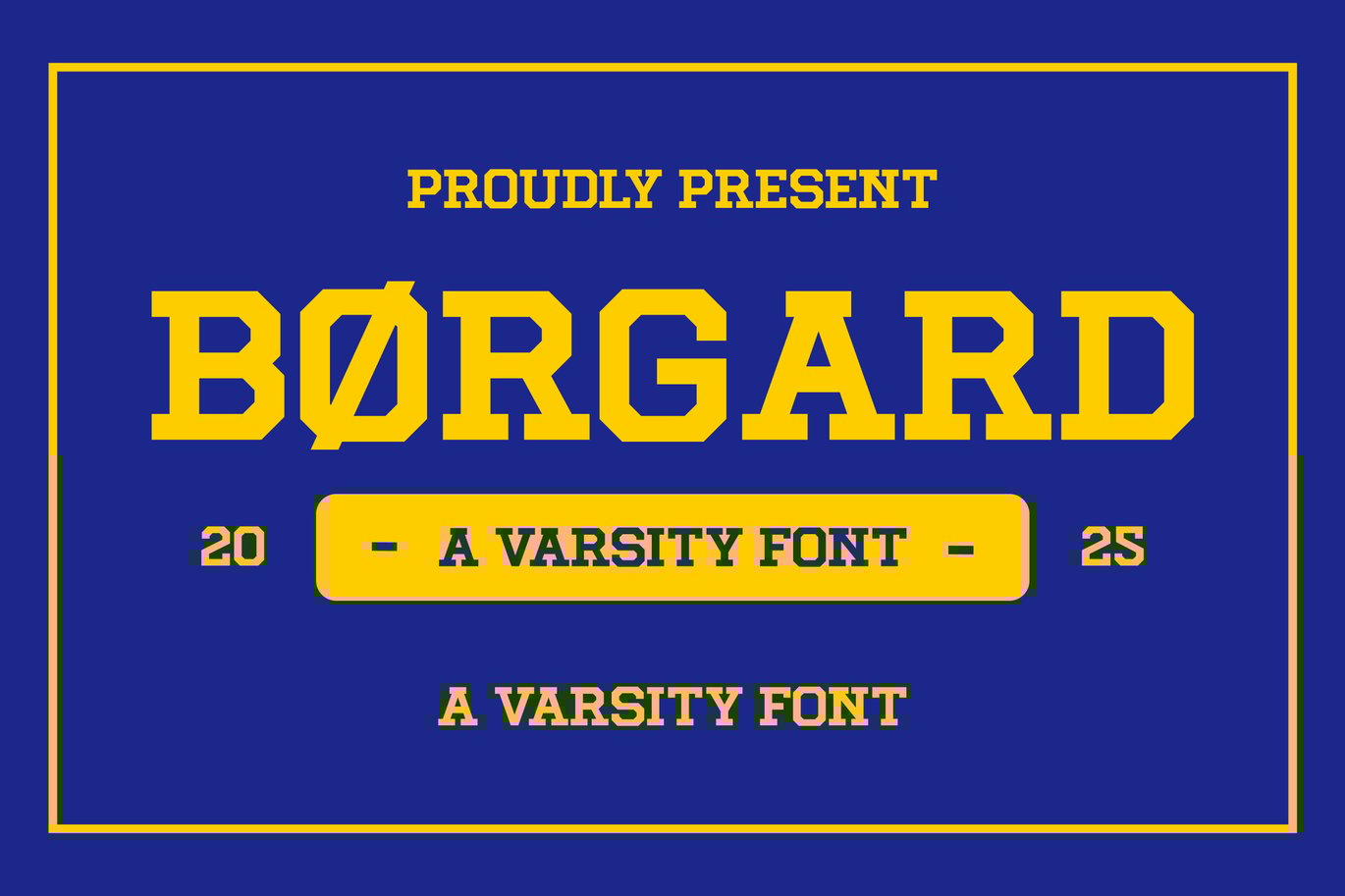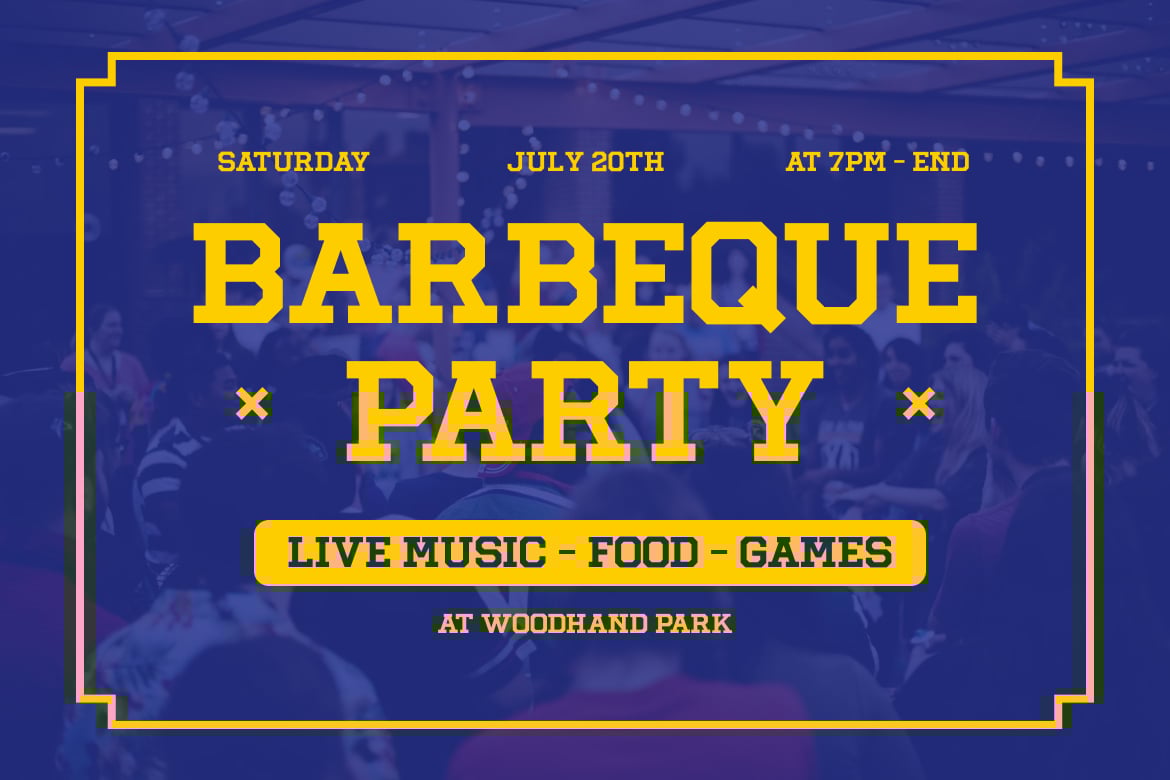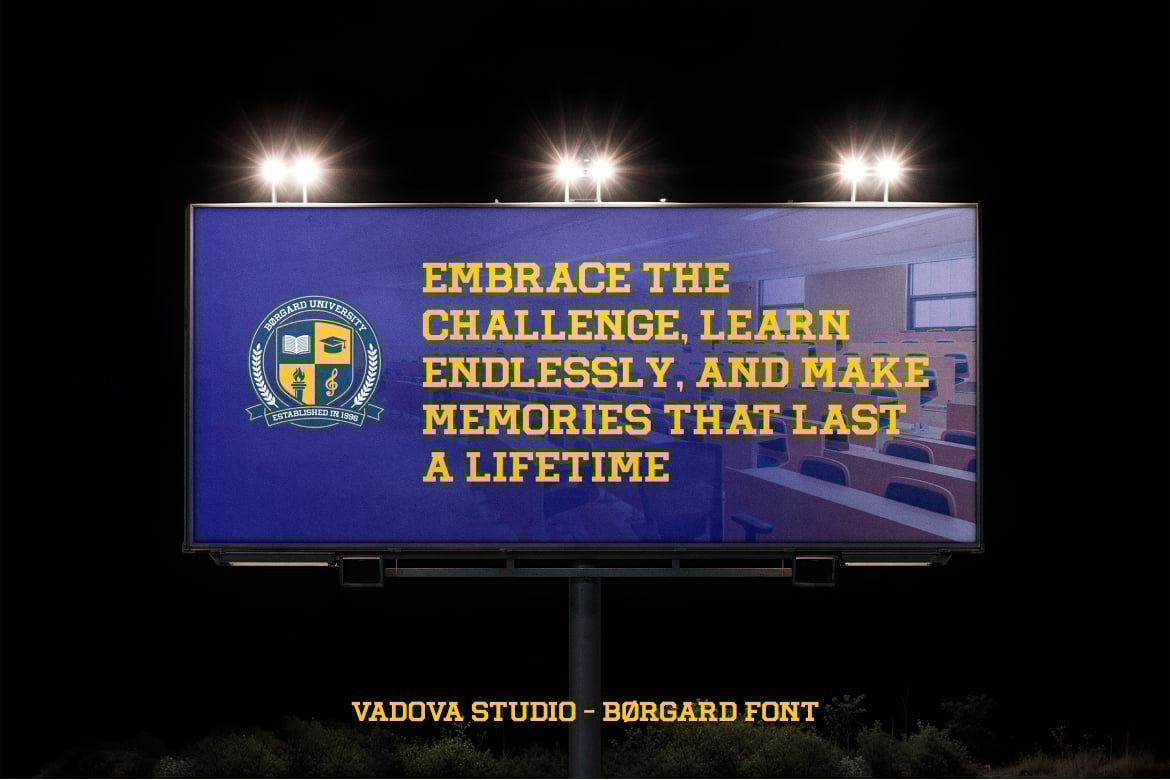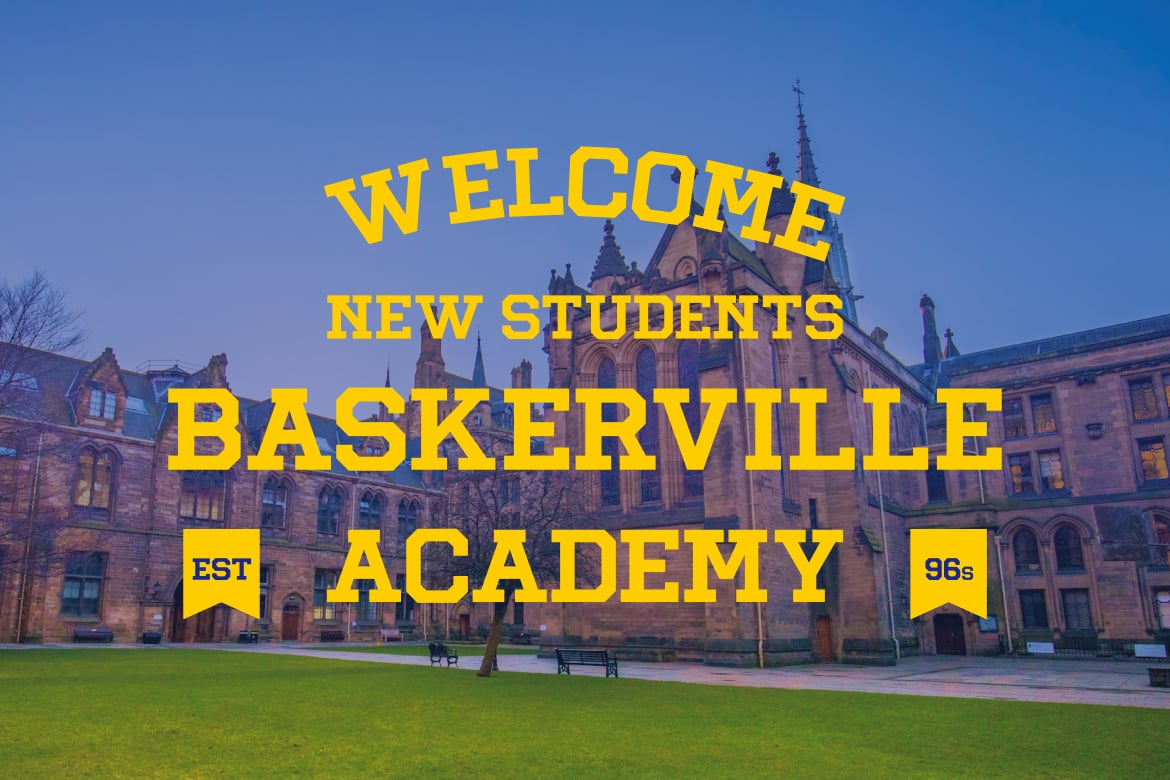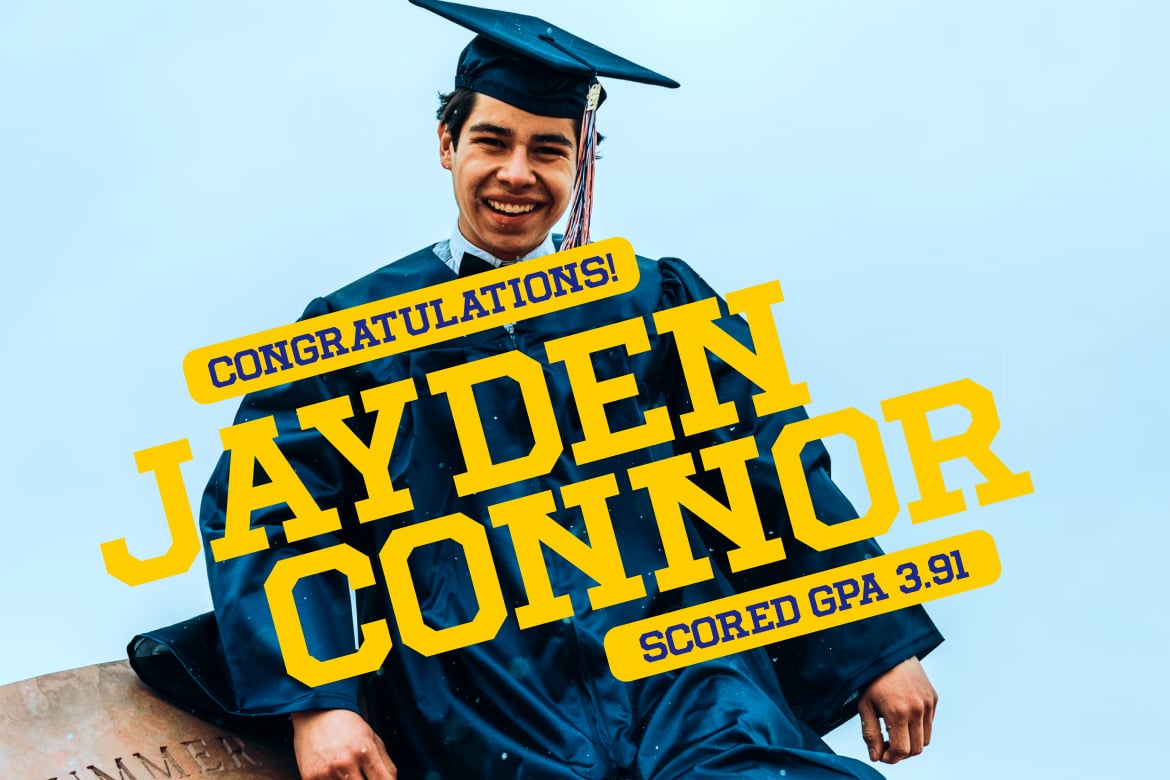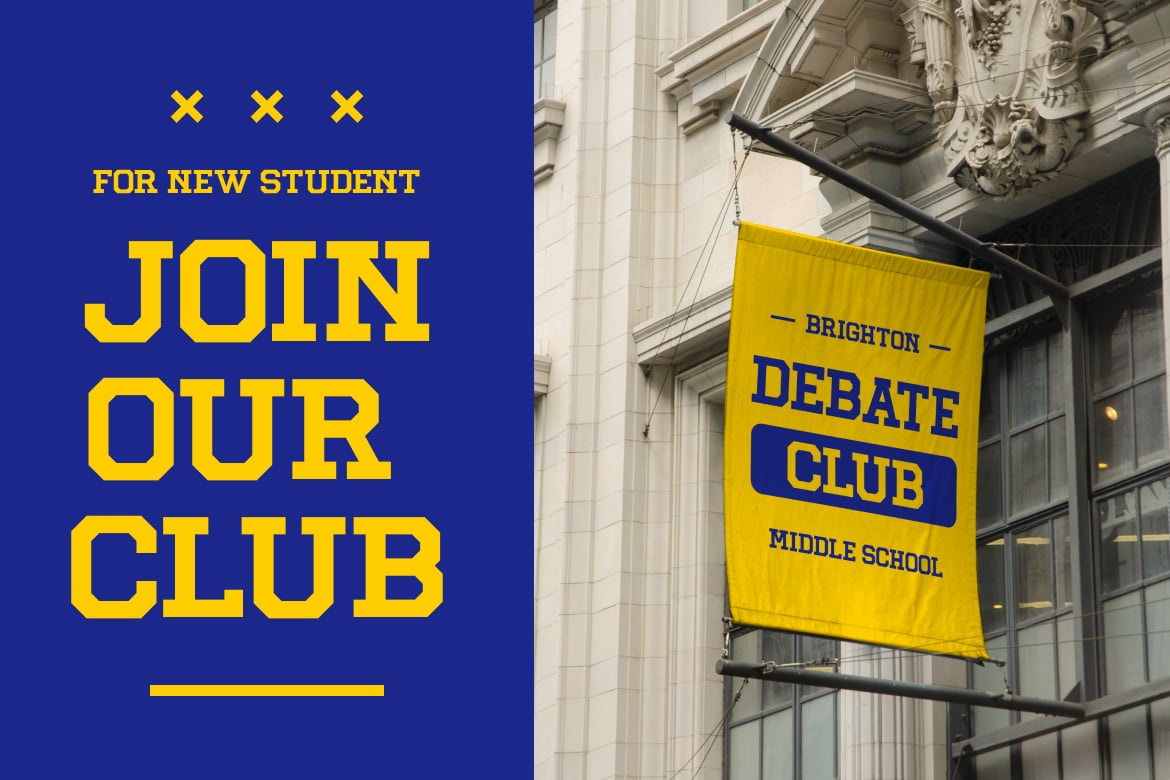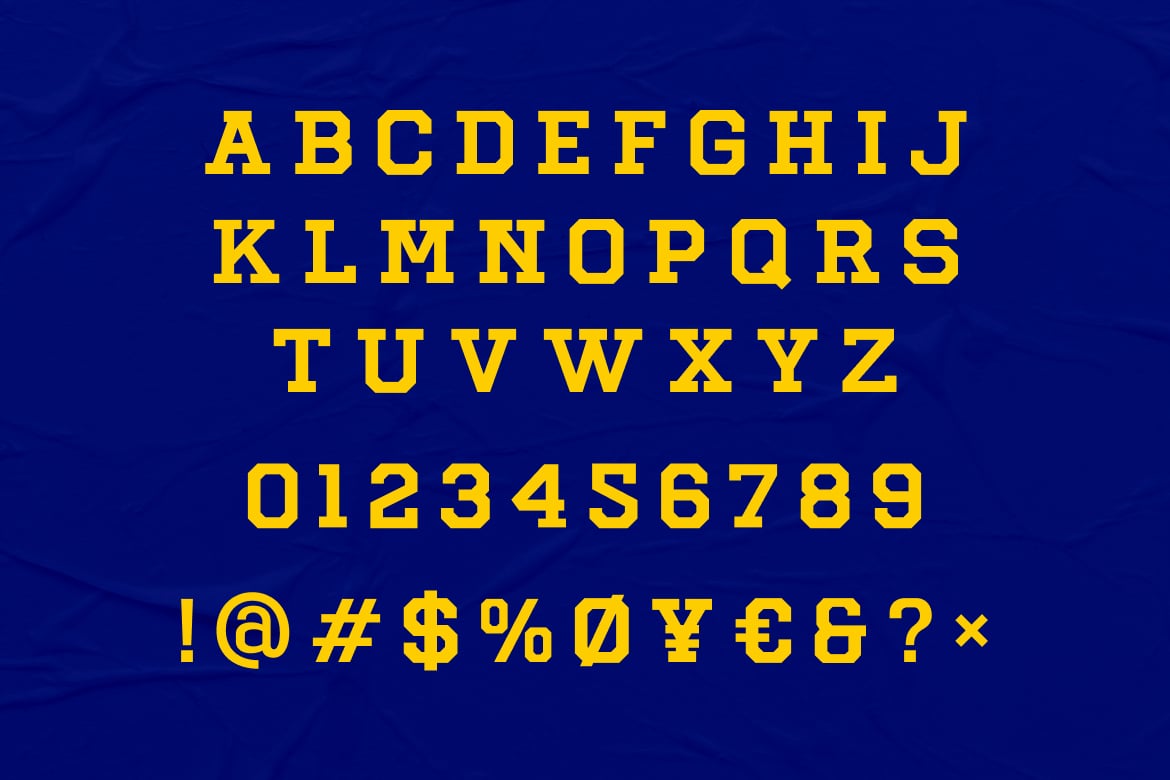
Borgard Varsity Font
Elevate your designs with Borgard Varsity Font, a bold and dynamic varsity typeface that embodies the spirit of competitive sports and academic excellence. Designed with strong geometric forms and sharp edges, it reflects the classic lettering found on university jackets, sports jerseys, and athletic banners. Its structured yet versatile design ensures high readability while maintaining a commanding presence, making it ideal for branding, merchandise, posters, and team logos. With a perfect blend of tradition and modernity, Borgard captures the essence of varsity culture, bringing energy and confidence to any creative project.